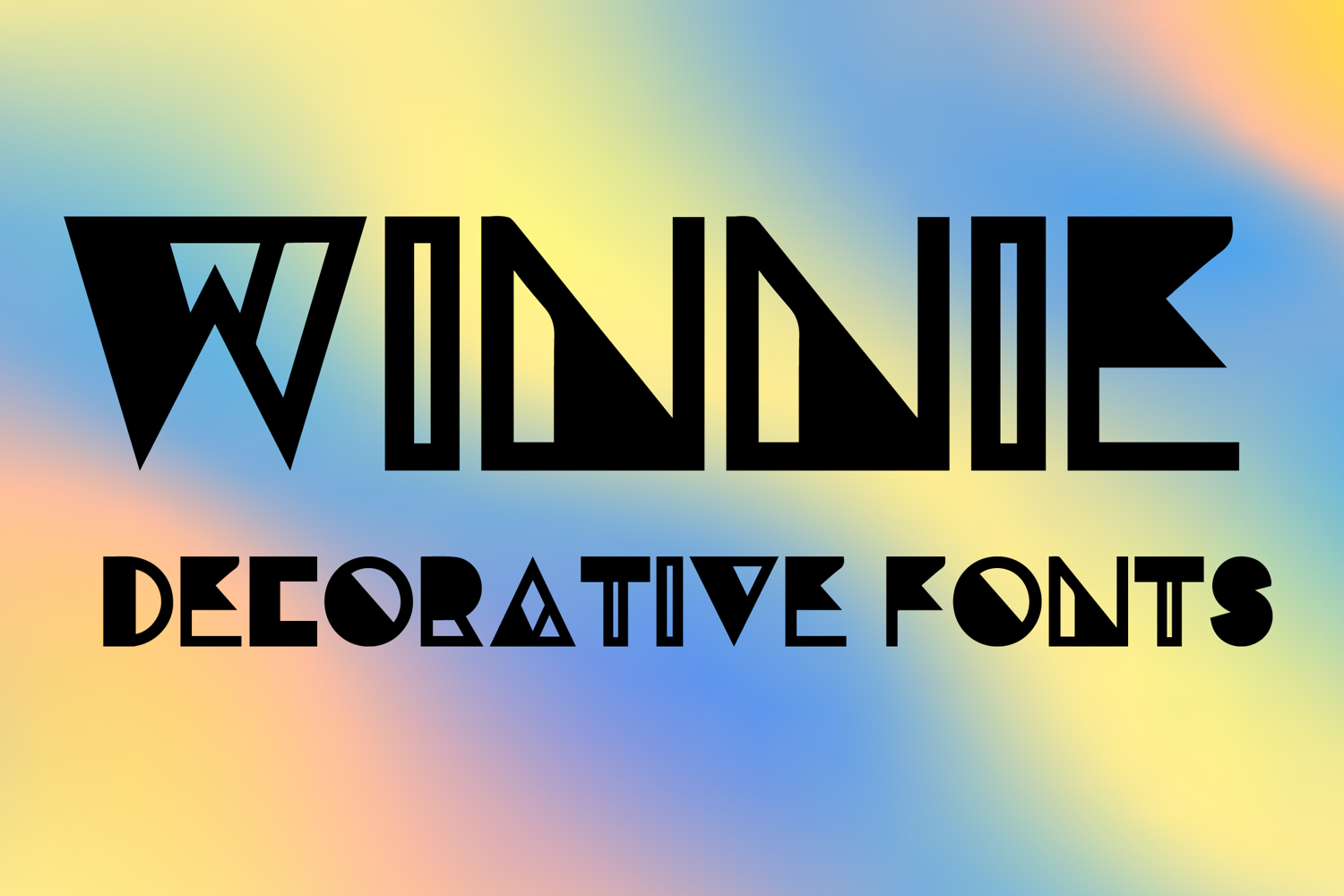
WINNIE
WINNIE-Regular
WINNIE is a bold decorative display font with a modern geometric style and strong artistic character. Its uppercase letterforms feature sharp angular cuts, blocky shapes, and striking stencil-inspired details that create a stylish, edgy, and eye-catching look. Designed with uppercase letters A–Z and numbers 0–9, WINNIE is perfect for branding, posters, packaging, logos, headlines, and social media graphics that need a bold and memorable statement.